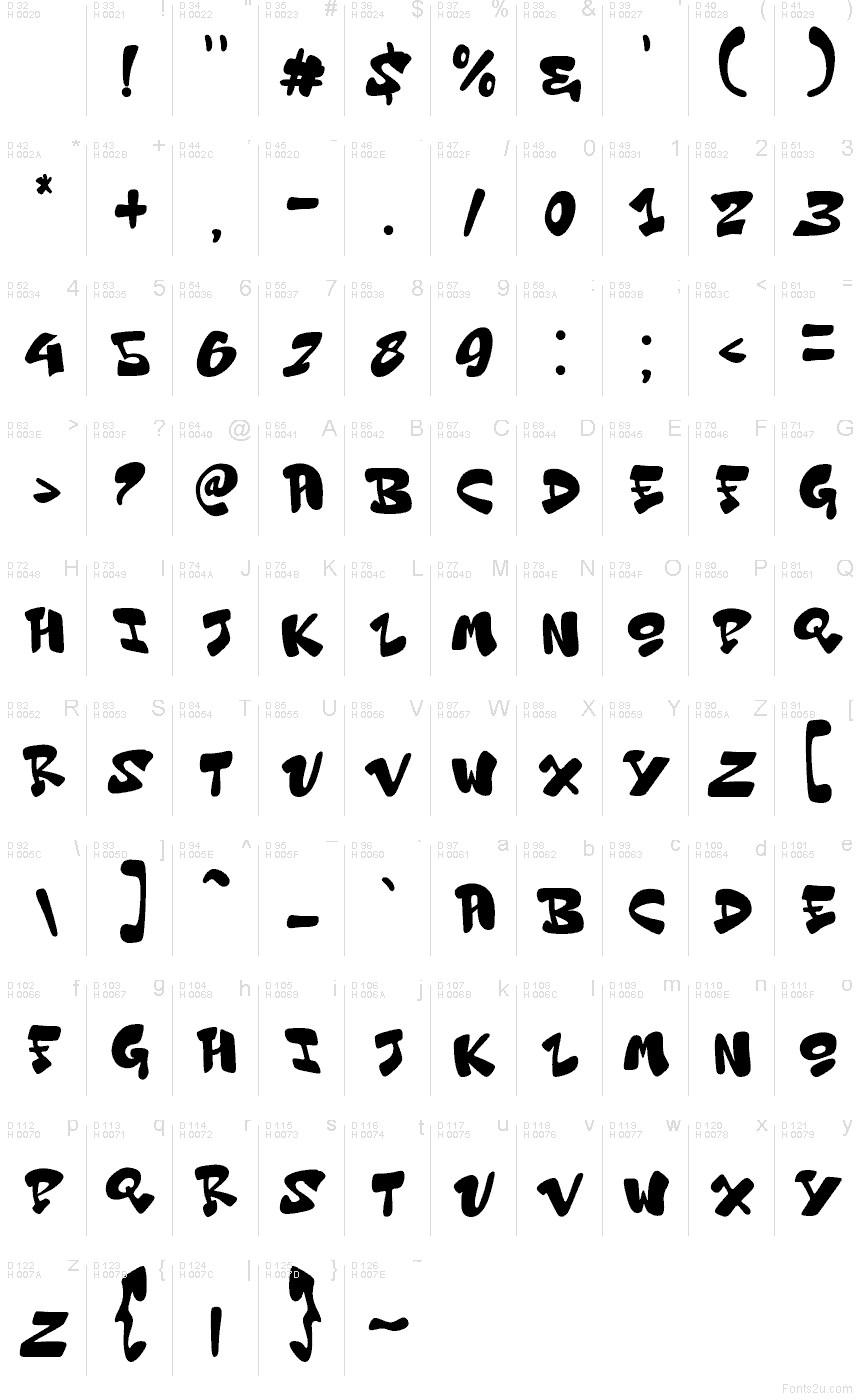
Endless Fusion Solid font by Muhammad Panji Ramdhani of Figuree Studio brings the Endless Fusion family to life with chunky, ink-heavy strokes that feel like fresh paint pressed onto a wall. The letters bounce with playful wobble and rounded corners, giving you that street-tag energy without turning messy. It is a free graffiti font, and the typeface keeps its punch even when packed tight.
Using Endless Fusion Solid on poster headlines, skate or streetwear logos, music flyers, YouTube thumbnails, album covers, sticker designs, and bold social banners instantly adds attitude. Keep it large and give it breathing room; pair it with a clean condensed sans for any supporting text-this free font likes a crisp sidekick.